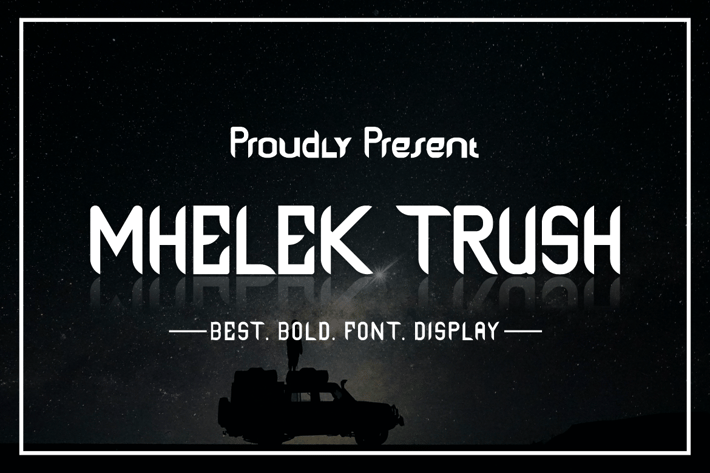
MHELEK TRUSH FONT
Introducing our new product MHELEK TRUSH FONT - Modern Font
MHELEK TRUSH FONT - Modern Font is a bold and authentic display font. The font is suitable for any branding project like logo, t-shirt printing, esport, and many more. outstanding in a wide range of contexts.